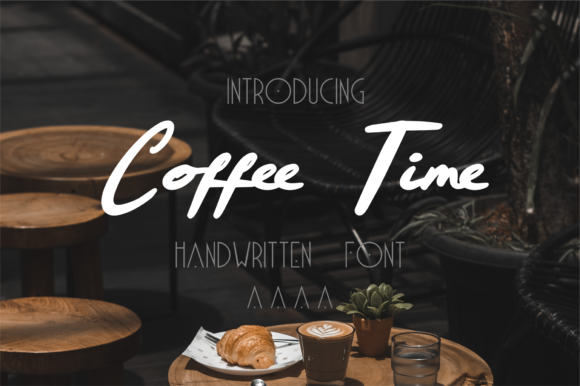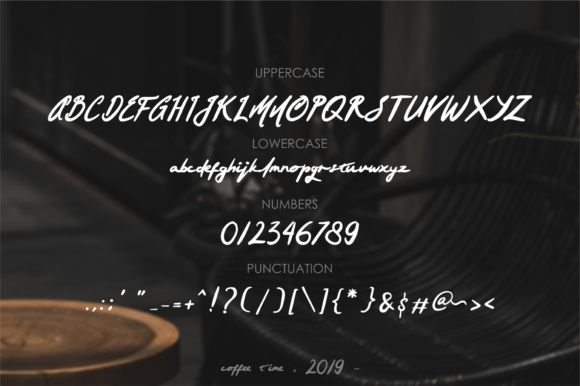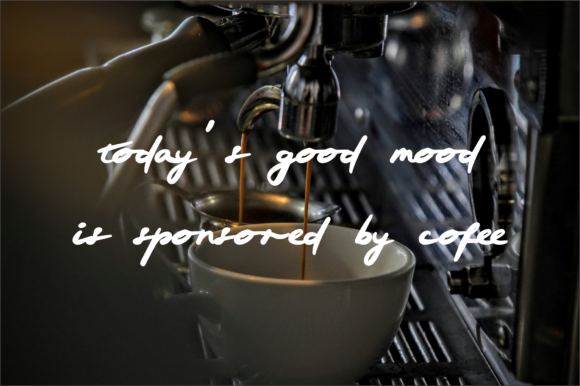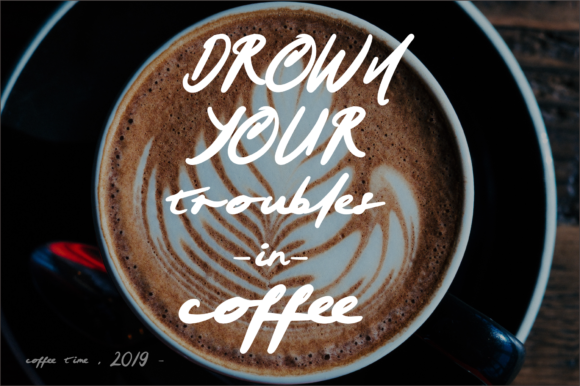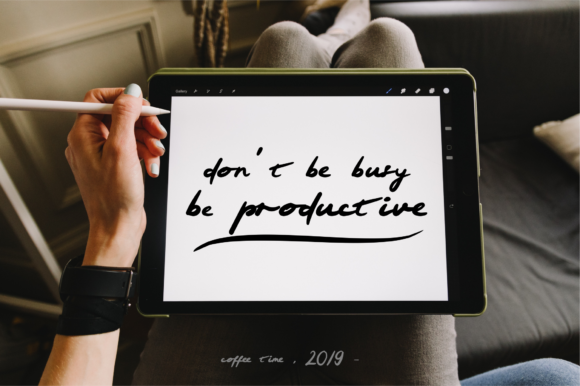
Coffee Time Font
About Coffee Time Font
The Coffee Time is an unique handwritten font. it’s perfect for branding projects, quotes, and any coffee related design.